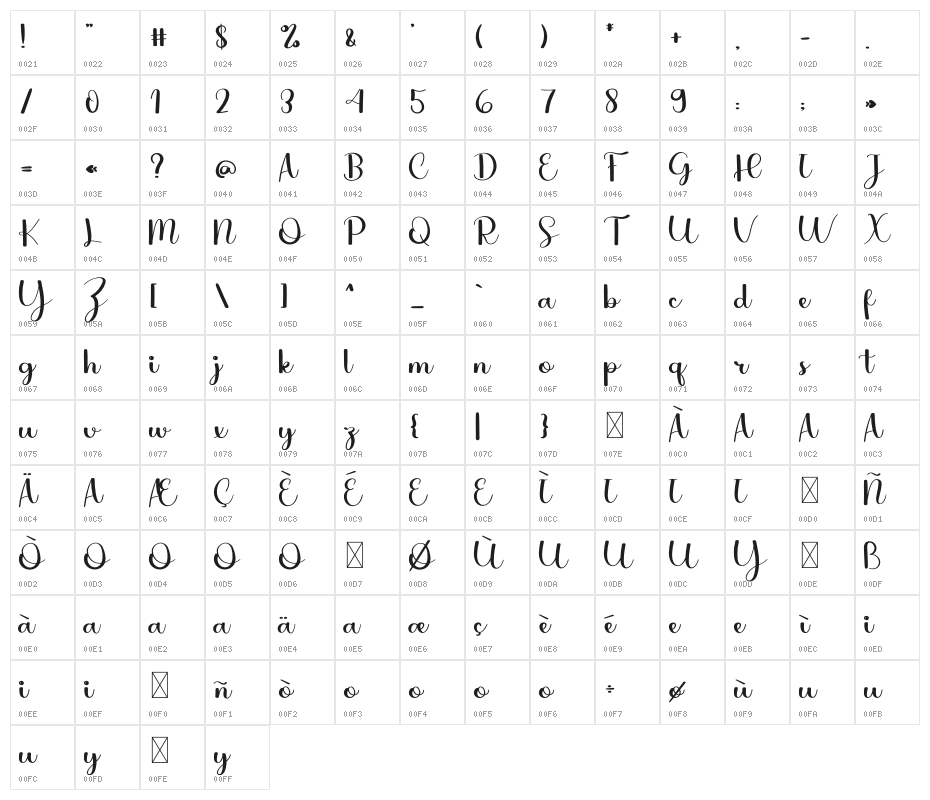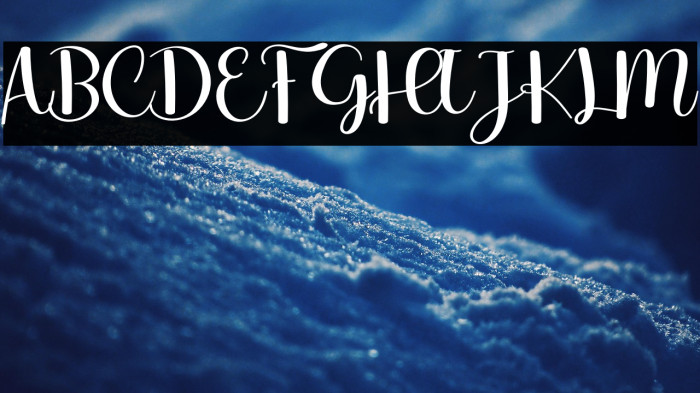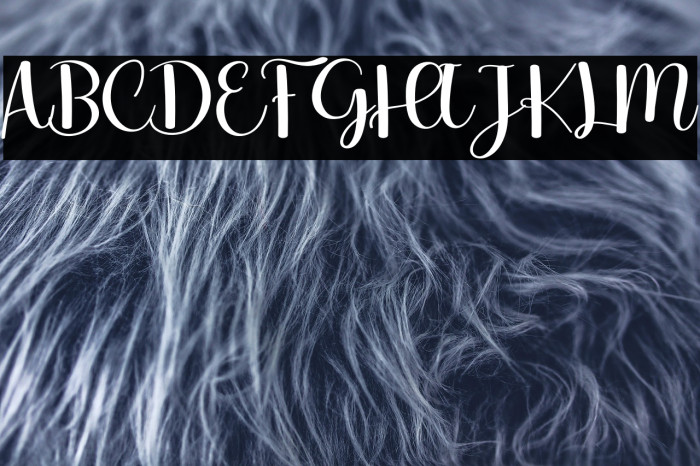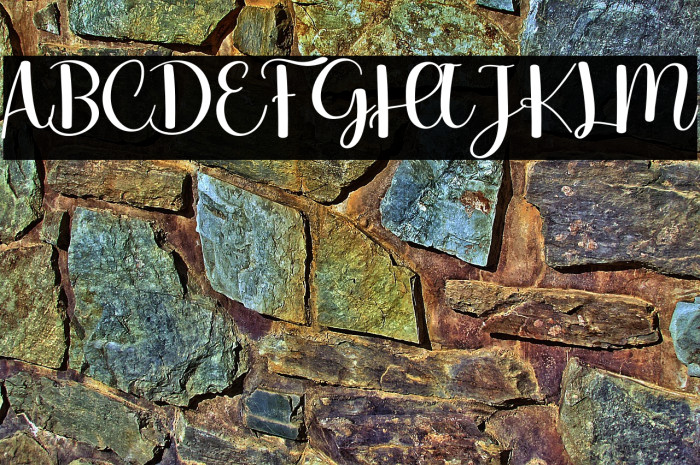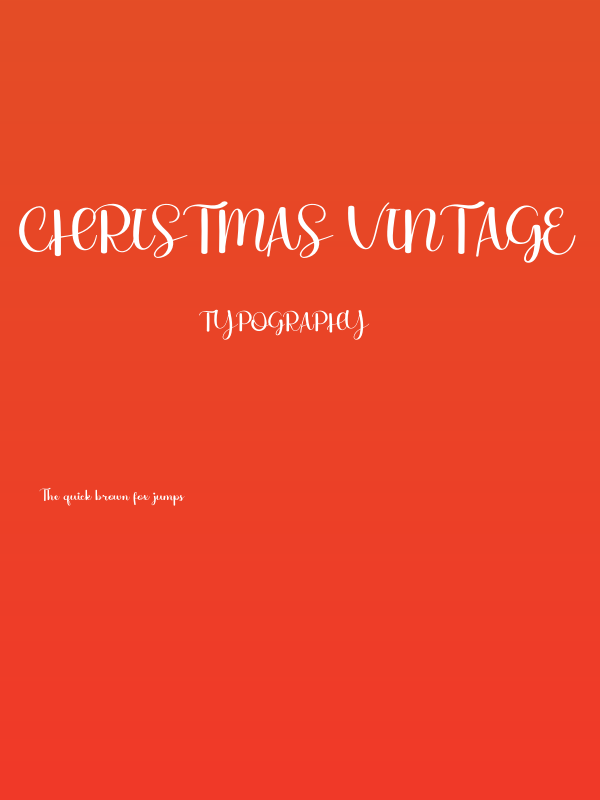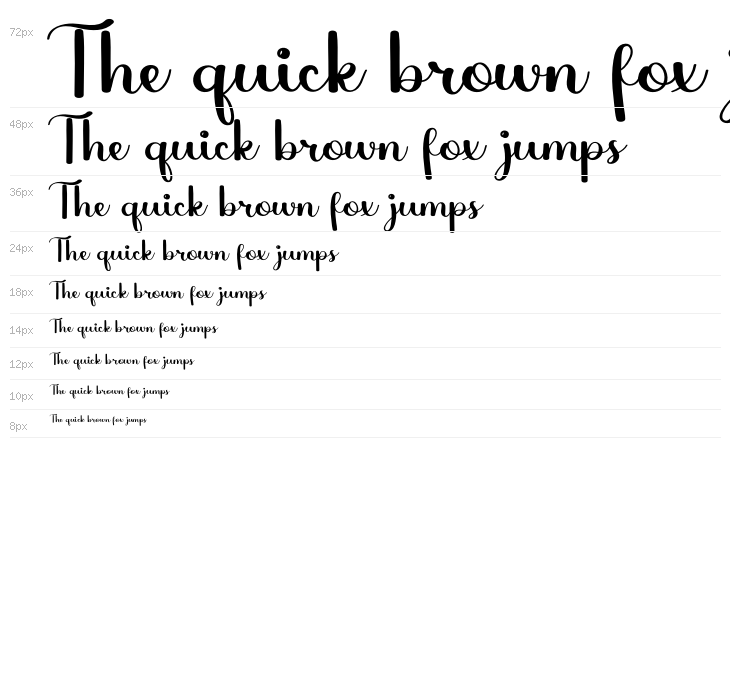
Christmas Vintage Font
Christmas Vintage Description
This font exudes a festive and vintage charm, characterized by its flowing script style that mimics elegant handwriting. The uppercase letters are ornate, with sweeping curves and loops that add a touch of sophistication. The lowercase letters maintain a consistent style, with smooth connections between characters, enhancing its cursive appeal. Numbers and special characters are designed to match the overall aesthetic, ensuring a cohesive look. This font is perfect for creating a warm and inviting atmosphere, ideal for holiday-themed projects or any design requiring a touch of nostalgia and elegance.
Overall StyleVintage
Use CaseHeadlines, Logos, Invitations
Proposed ProjectsIdeal for holiday cards, invitations, festive branding, and decorative signage.